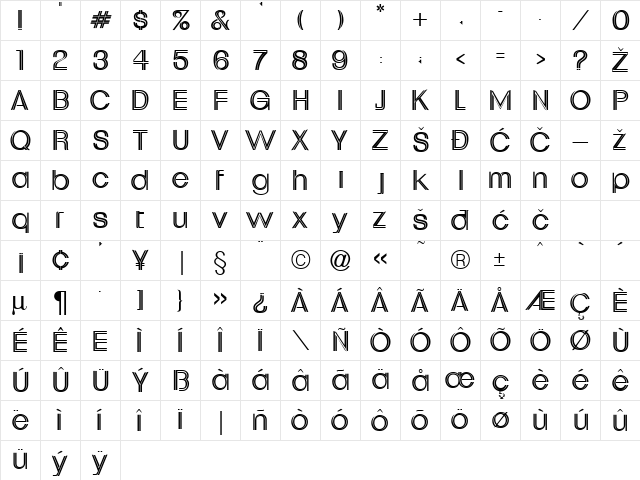
UptightNeon Regular
Design Context for UptightNeon
UptightNeon has a distinctly futuristic character, with geometric precision and clean angles that feel at home in technology, gaming, and sci-fi contexts.
Pro Tip: Try UptightNeon with generous letter-spacing in UI labels and navigation - the geometric forms benefit from room to breathe.